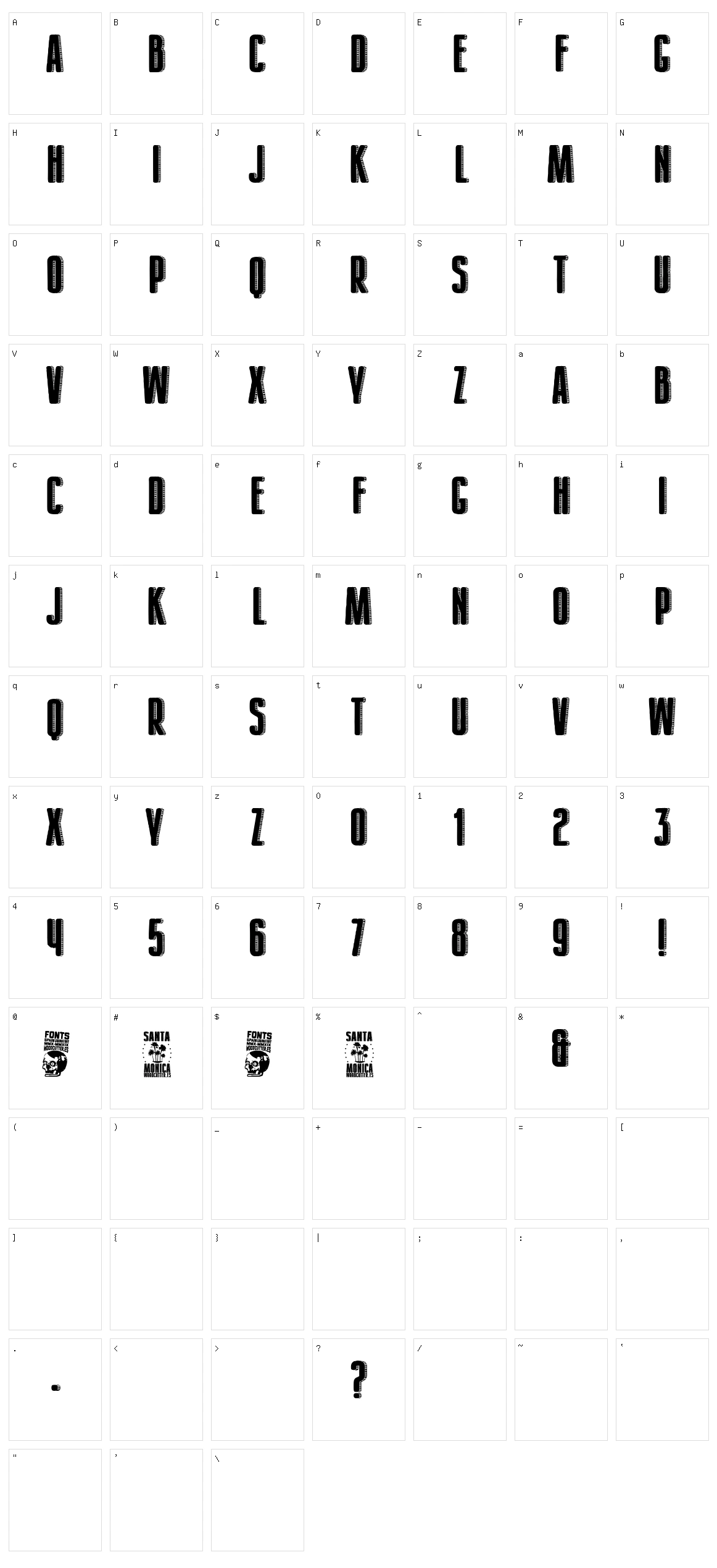
The free font Santa Monica is carefully designed by Woodcutter, showcasing a thoughtful balance of creativity and usability and falls under the Retro font style. When you download the ZIP file, it contains only 173.12 KB of font files, making it lightweight and quick to download. Please review the license details below to understand permitted usage and distribution rights. If license information is not available, we recommend using this font for personal projects only or contacting the author directly for commercial usage permissions.